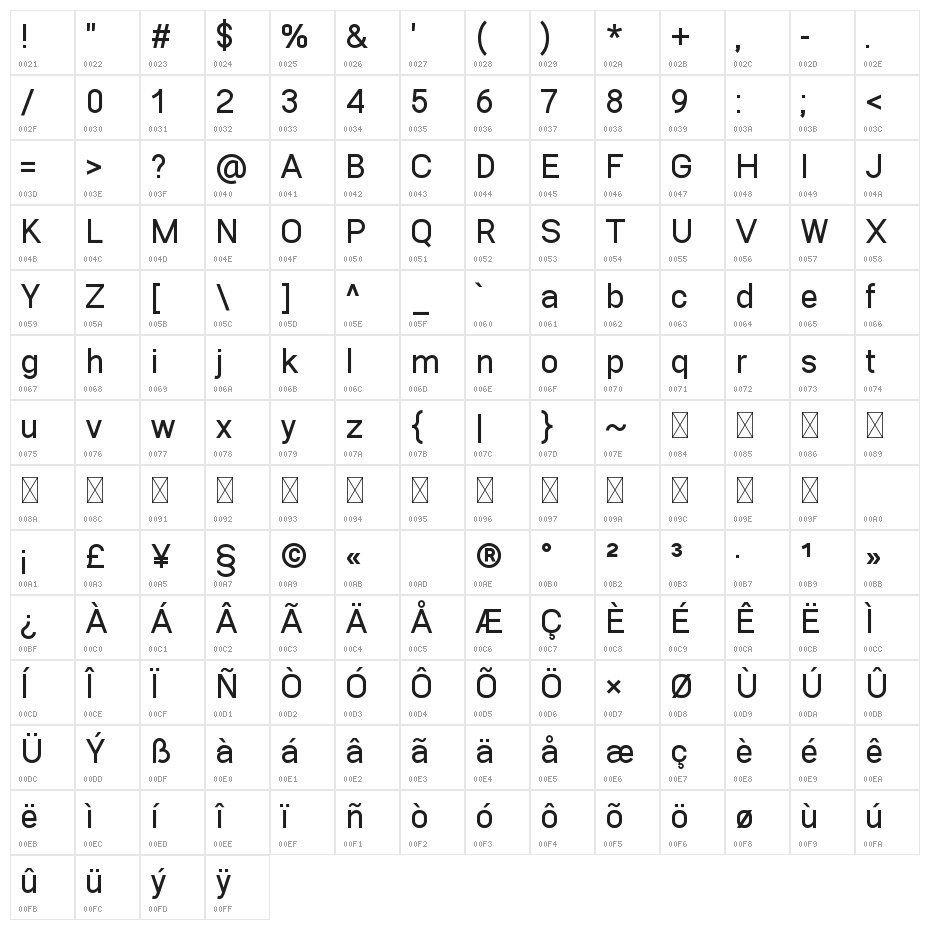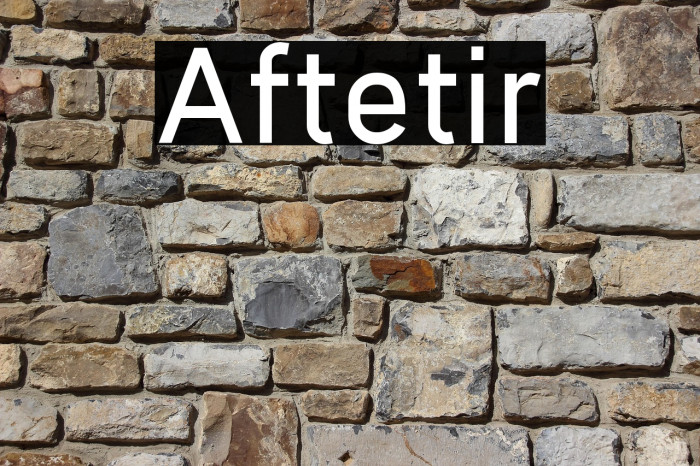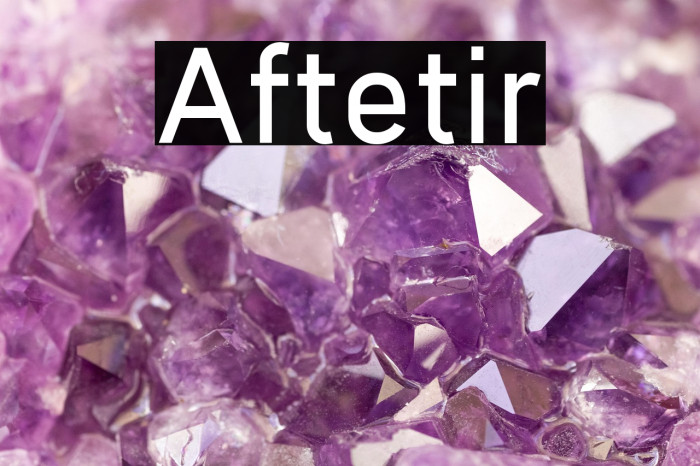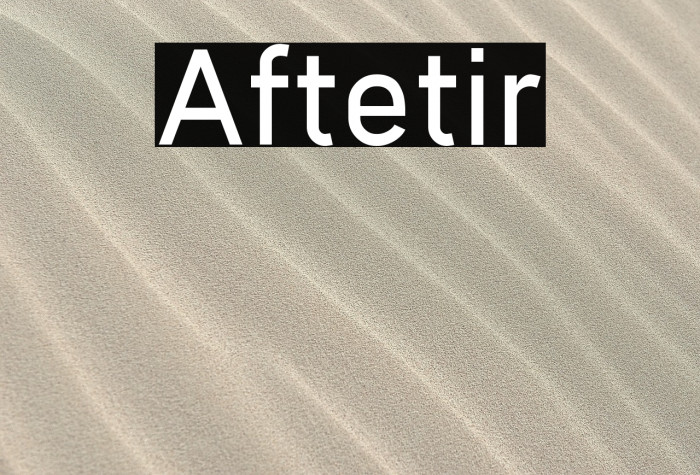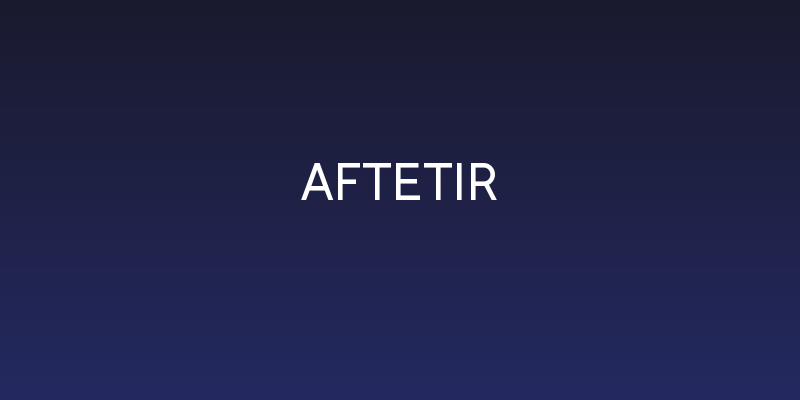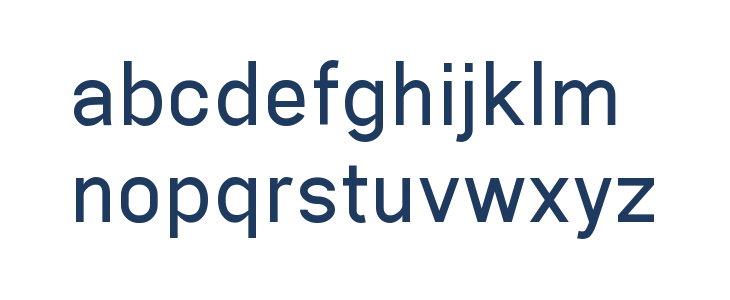
Aftetir Font
Aftetir Description
This font features a clean and modern sans-serif design, characterized by its geometric shapes and uniform stroke widths. The letters are well-proportioned, offering excellent readability across both uppercase and lowercase characters. The numerals are distinct and align well with the overall style, ensuring clarity in numerical data presentation. Special characters are crafted with precision, maintaining the font's cohesive appearance. The simplicity and elegance of this typeface make it versatile for various applications, from digital interfaces to print media.